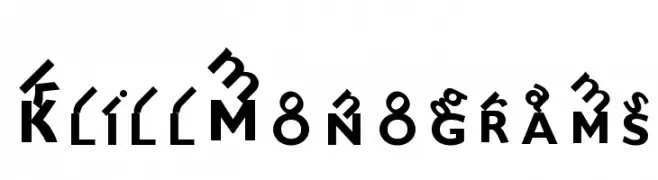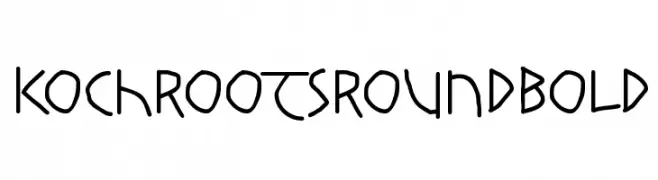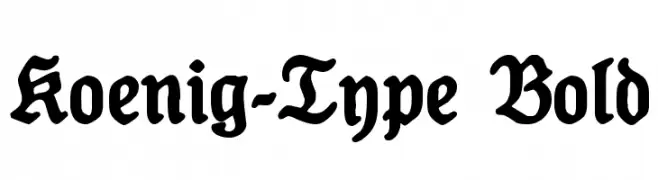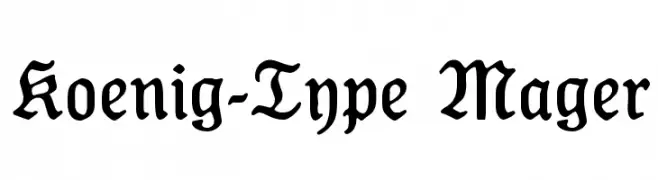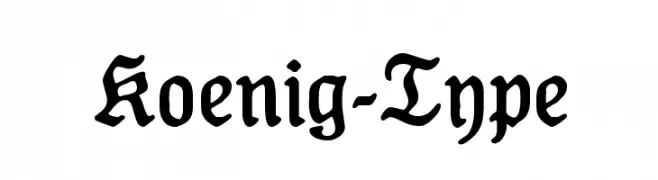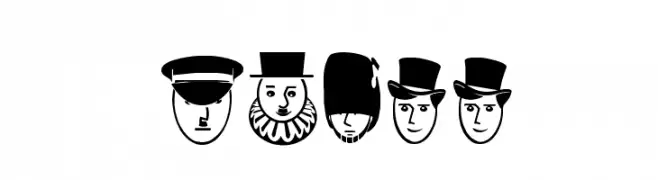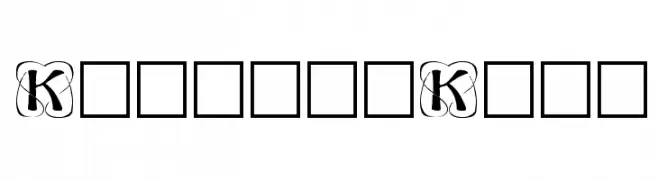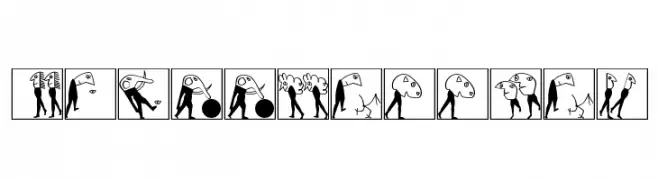
A bold, geometric font with a modern and striking design.
A bold, rounded font with a playful, hand-drawn style.
A classic blackletter font with intricate, angular designs and a medieval aesthetic.
A bold blackletter font with intricate, angular letterforms and strong serifs.
A classic blackletter font with ornate, medieval-inspired letterforms.
Cartoonish, character-based display font with faces for each glyph.
A decorative font with swirling embellishments and bold, high-contrast strokes.
A whimsical, cartoon-like font with playful characters instead of letters.